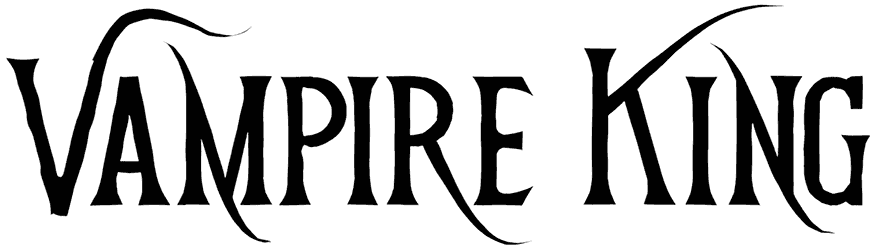
Vampire King Font
Vampire King is a gothic font that is great for making a strange atmosphere, even though it doesn’t have lowercase letters or numbers.
All of your future creative endeavors, from flyers and logos to movie or TV shows, will be fantastic if you use this vampire font. In our online store, you may discover many other items that are extremely similar to this one.